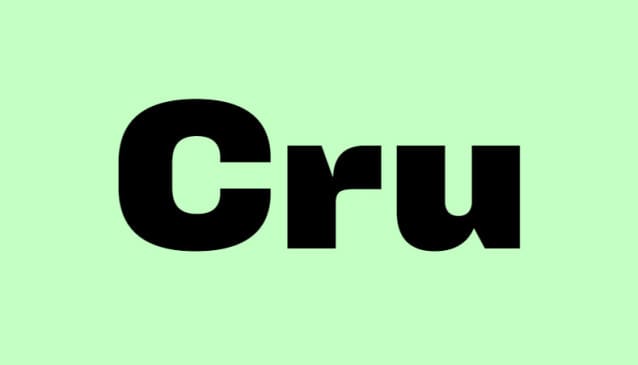
Cru Pro Font Family
Cru Pro Font Family is a sans serif  stunning when combined or separately. This sans serif font style is legible and stunningly designed.